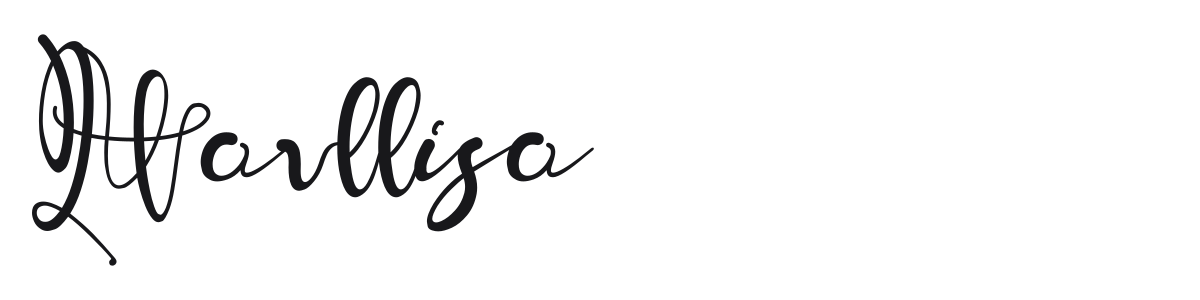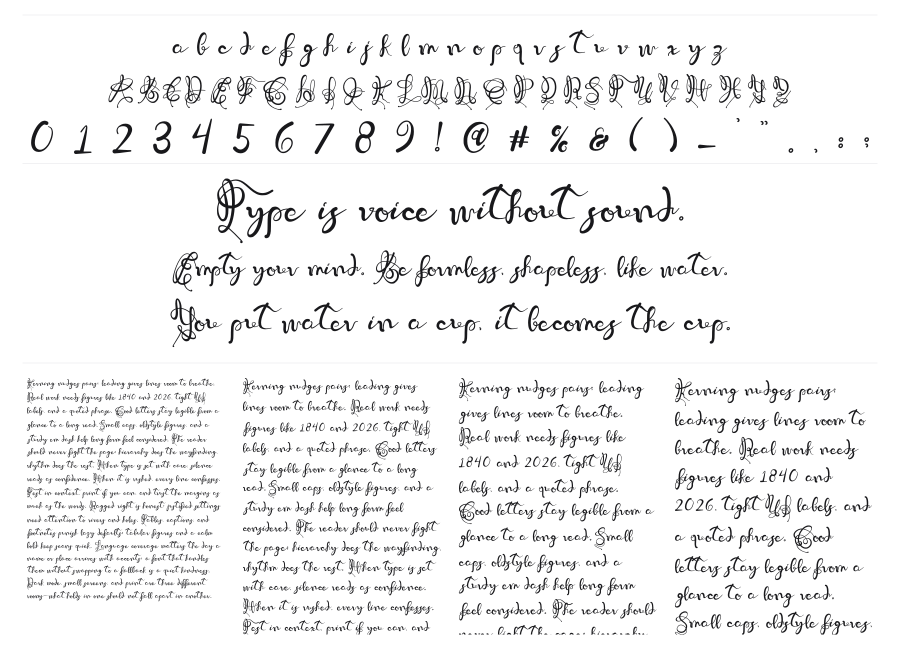
Warllisa
Warllisa is a casual connected script with a lively bouncy baseline and ink-like stroke contrast. Swashing loops and expressive ascenders give it a relaxed, handcrafted energy that reads as friendly without feeling childish. Strong at large sizes for logos, packaging, and social media headers.